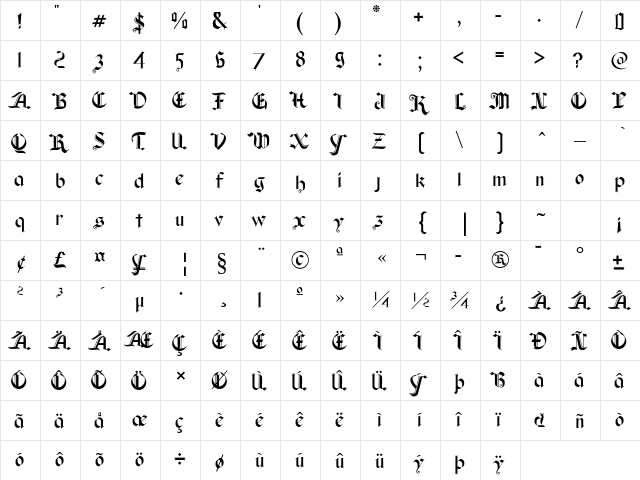
Old Wise Lord Regular
Design Context for Old Wise Lord Typeface
Old Wise Lord is a composed and adaptable typeface that performs quietly and consistently across a wide range of design contexts.